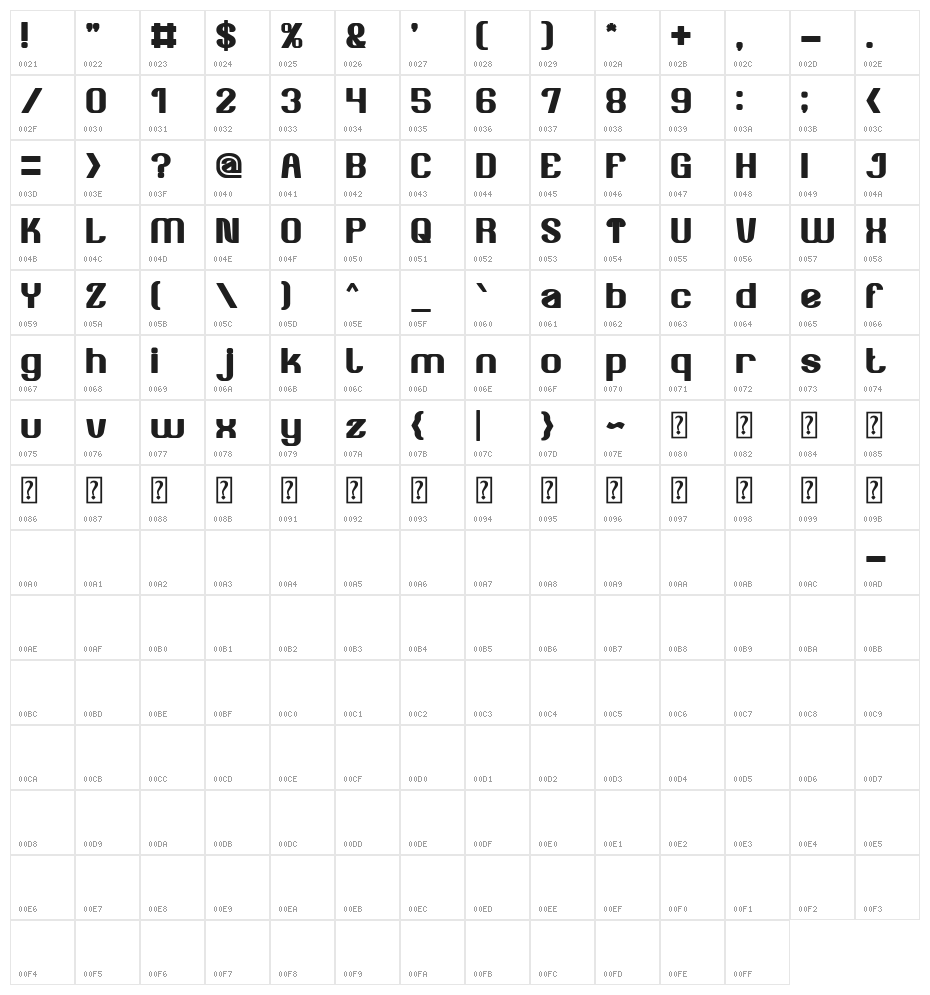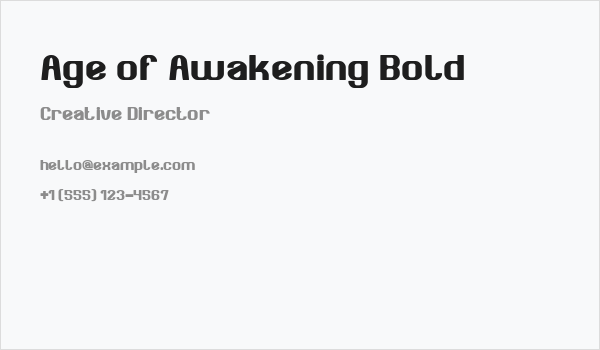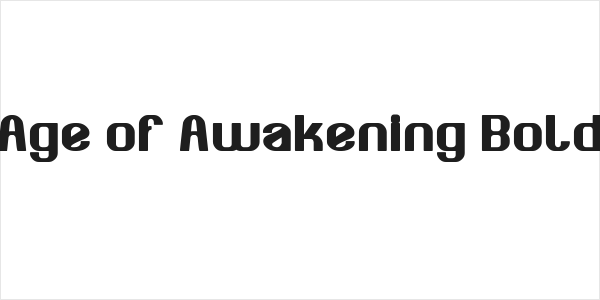
Age of Awakening Bold Font
Age of Awakening Bold Description
This font features a bold and modern design with a strong presence. The characters are wide and rounded, giving a sense of robustness and stability. The uppercase letters are uniform in height, while the lowercase letters maintain a consistent baseline, enhancing readability. The numerals are distinct and easily distinguishable, making them suitable for various applications. Special characters are well-integrated, maintaining the overall aesthetic of the font. This font's boldness and unique style make it ideal for attention-grabbing designs.
| Proposed Projects | Ideal for branding, headlines, posters, and any design requiring a bold statement. |